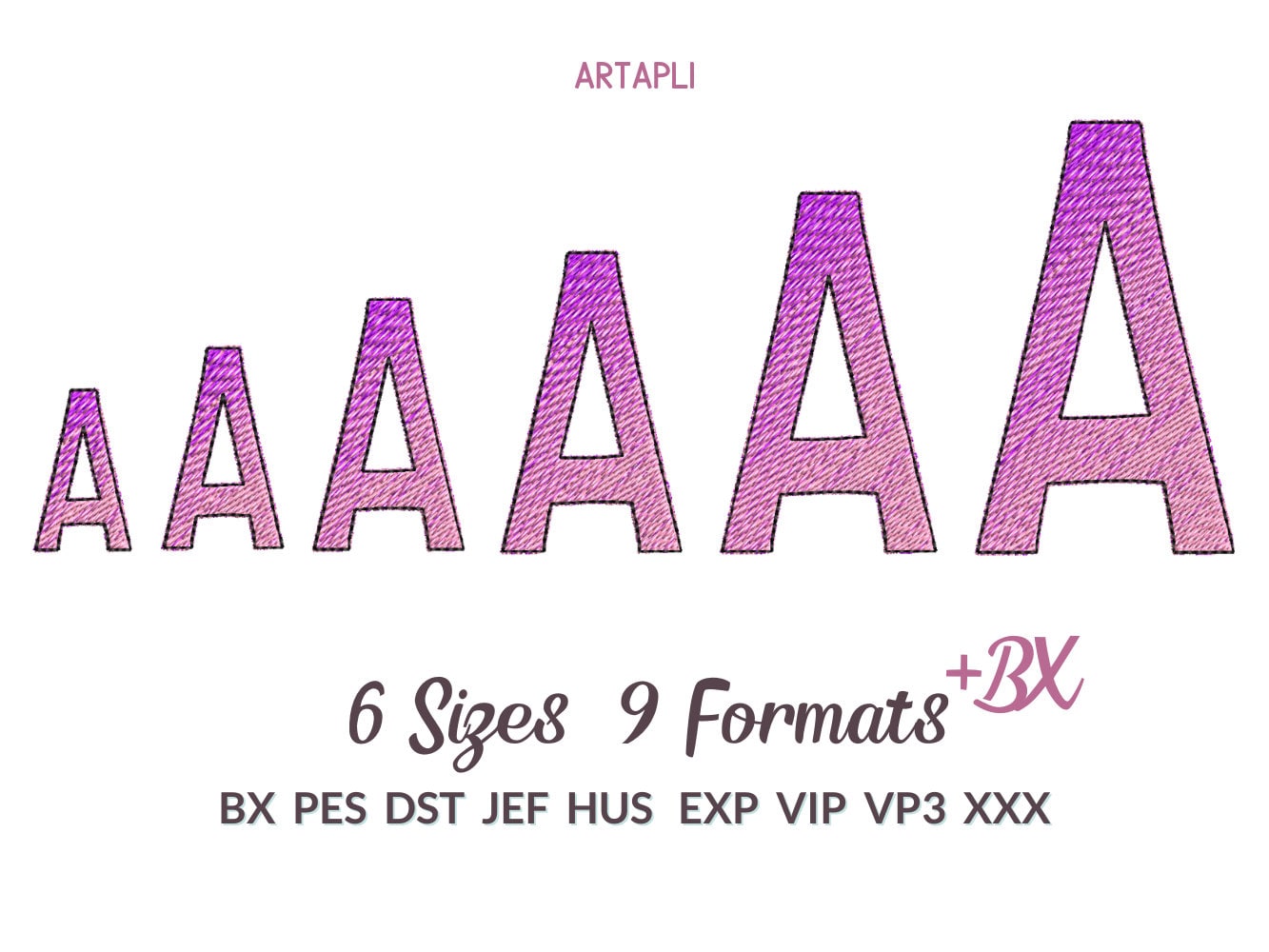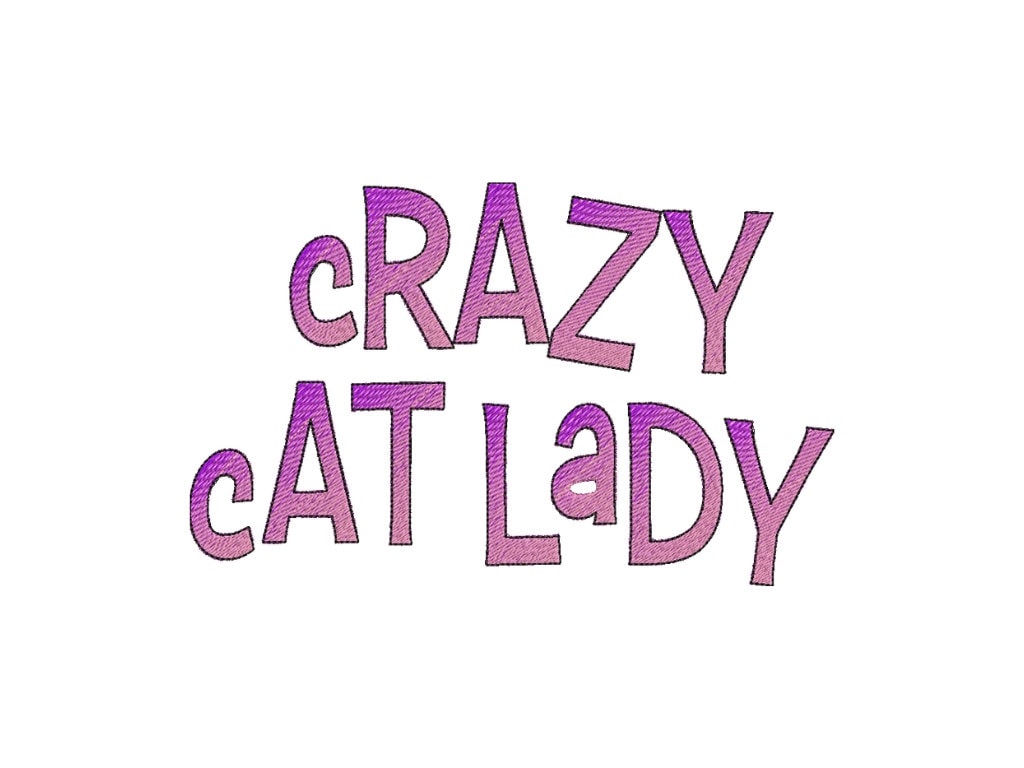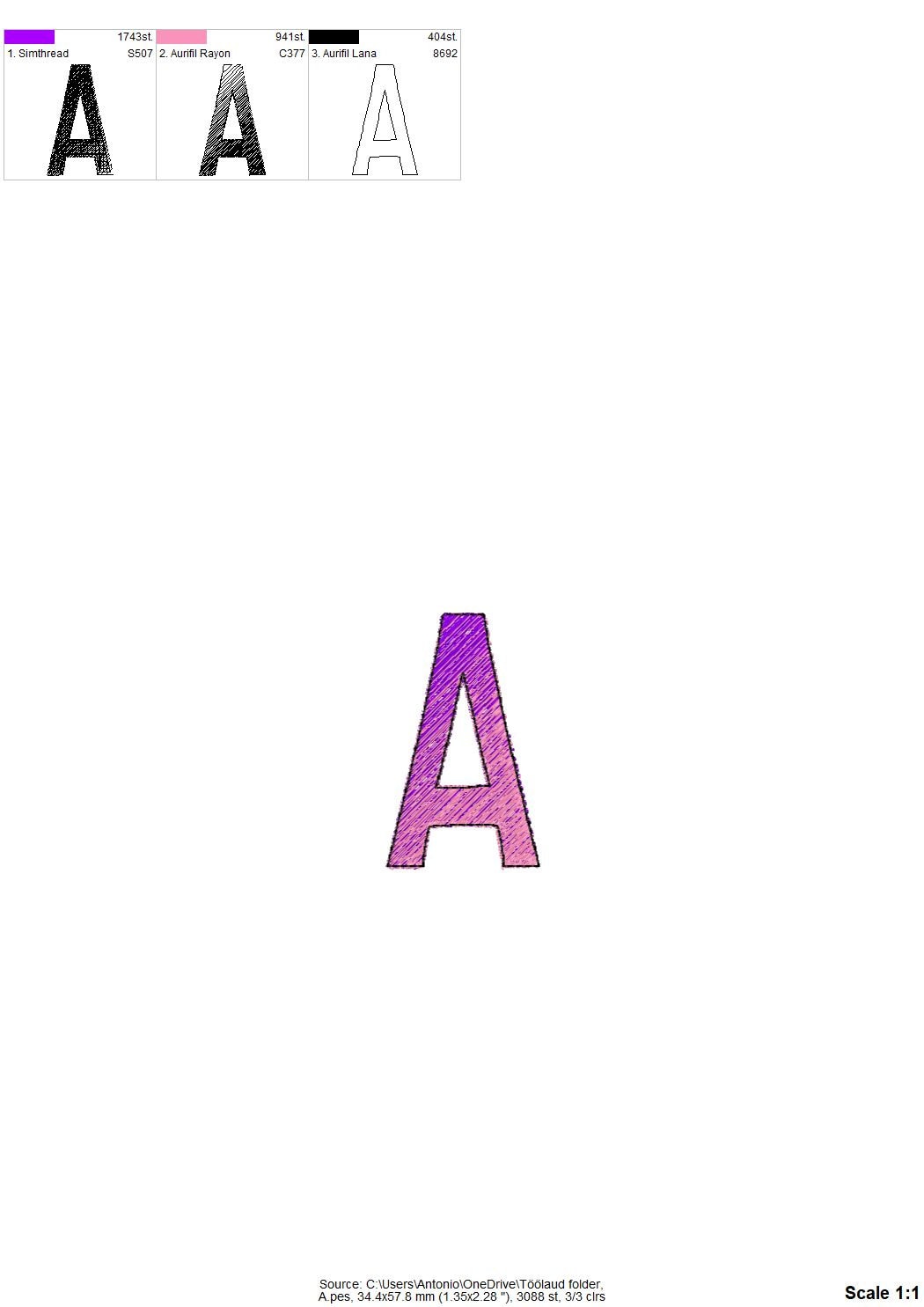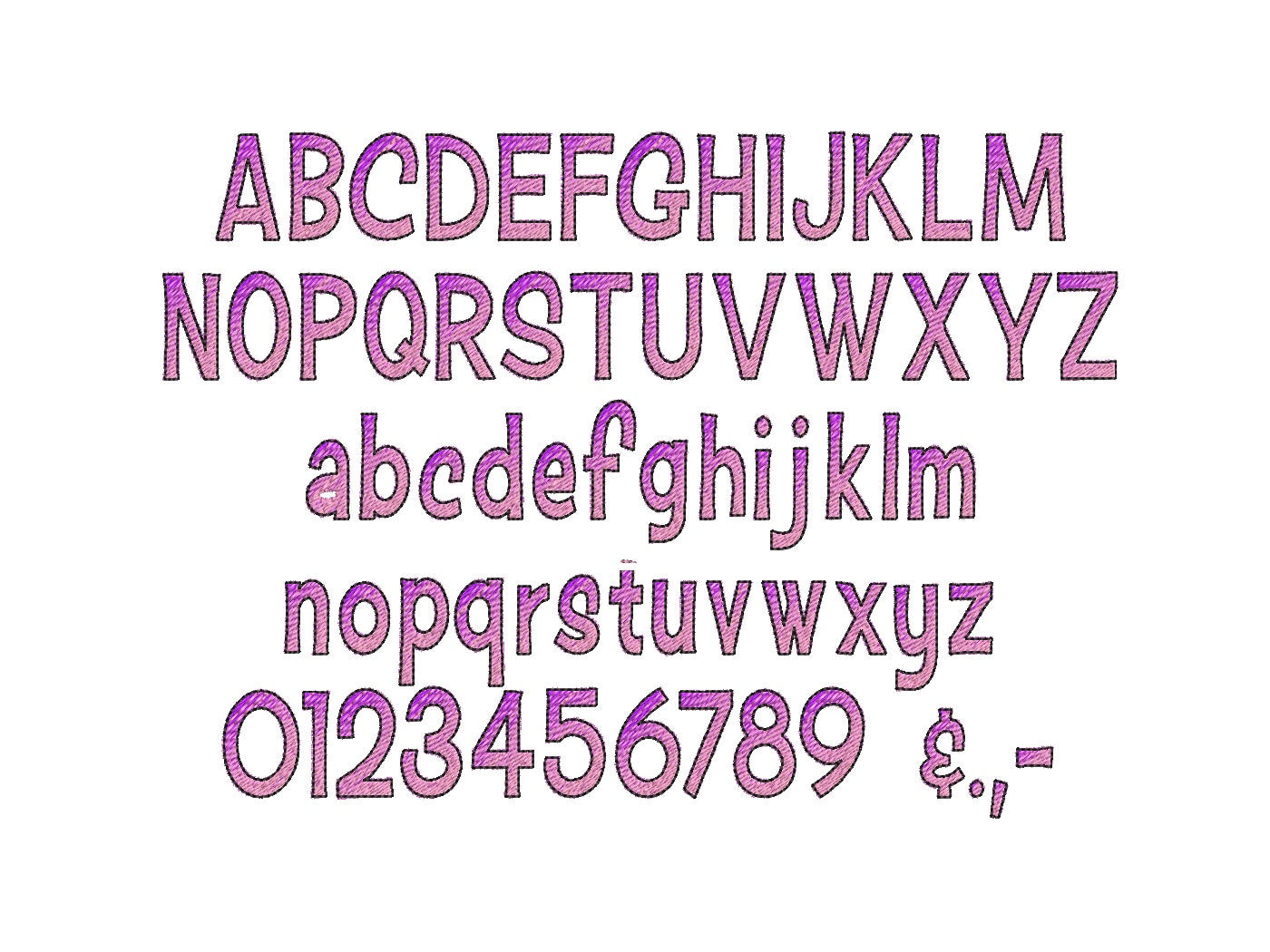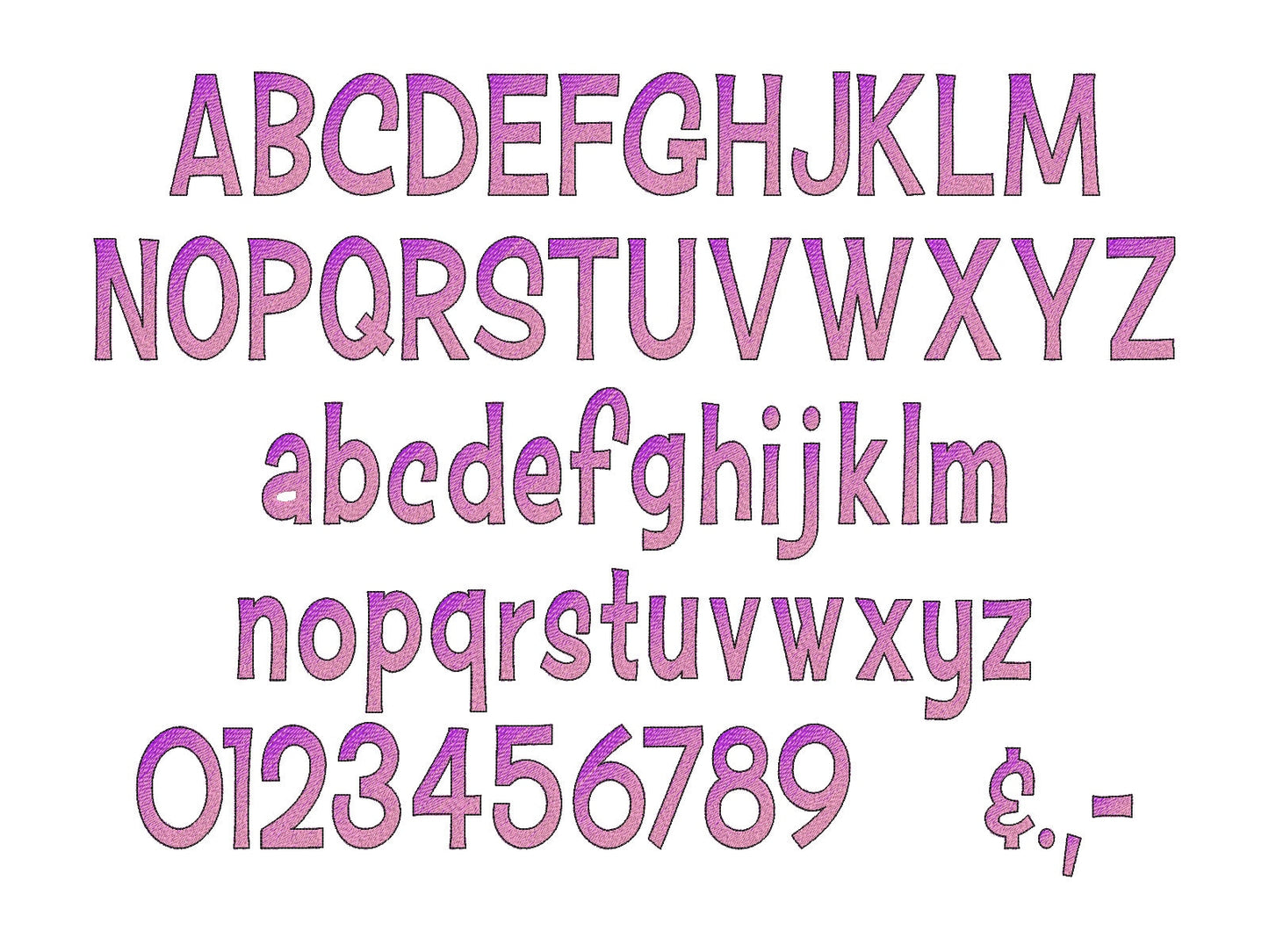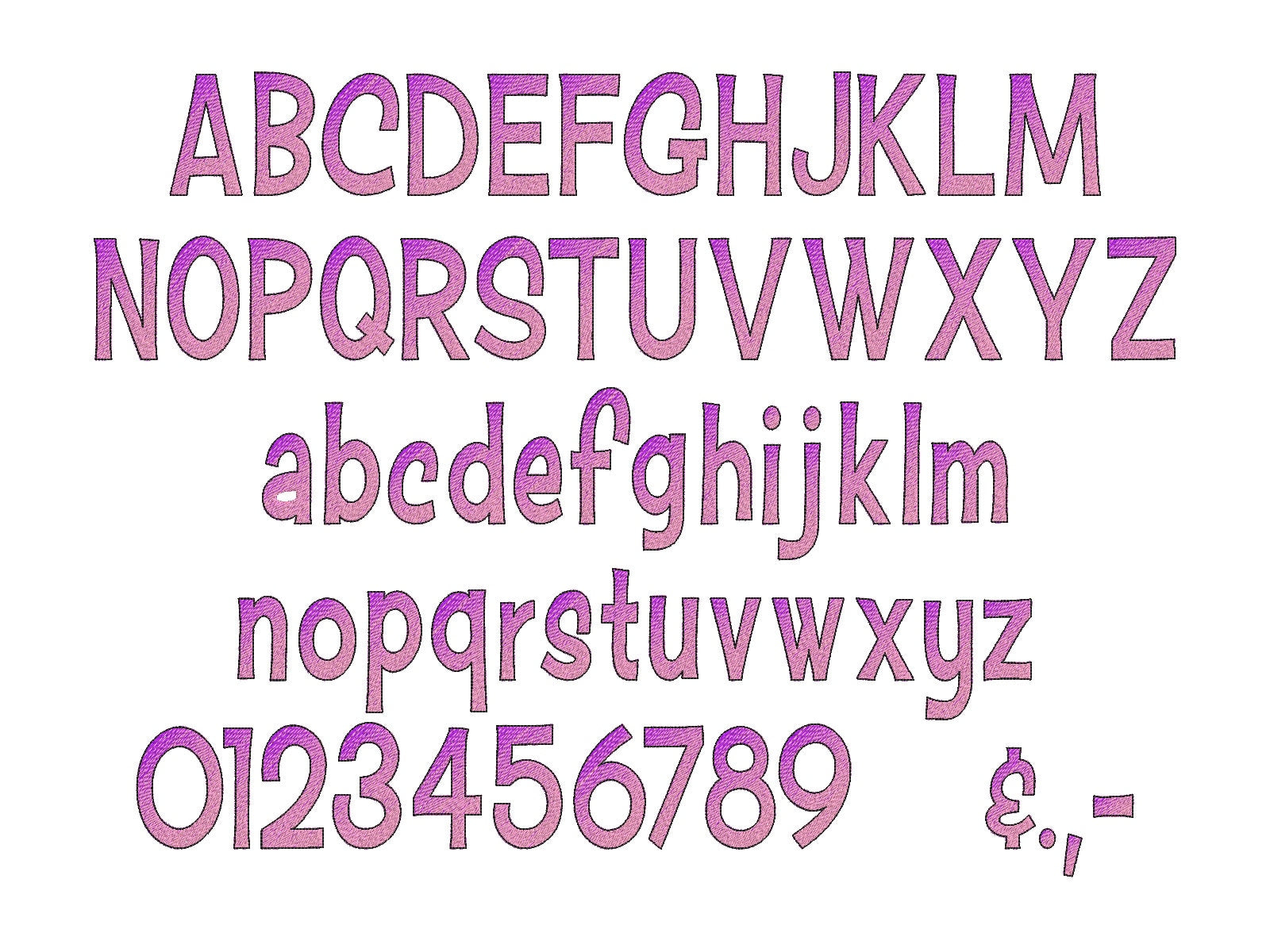
Iridescent Font 2 Color Monogram
Or click to open the linkAn iridescent monogram font stitched with two ordinary thread colors that blend into a rainbow gradient, no special thread needed. Lovely for names and sayings.
Uppercase and lowercase letters, numbers 0 to 9 and punctuation, in six sizes: 1.2, 1.5, 2, 2.3, 2.7 and 3.3 inches. One side of each letter is stitched in one color and the other side in the second.
- Iridescent 2-color monogram font
- Uppercase and lowercase letters, numbers 0-9, punctuation
- 6 sizes, 1.2 to 3.3 in